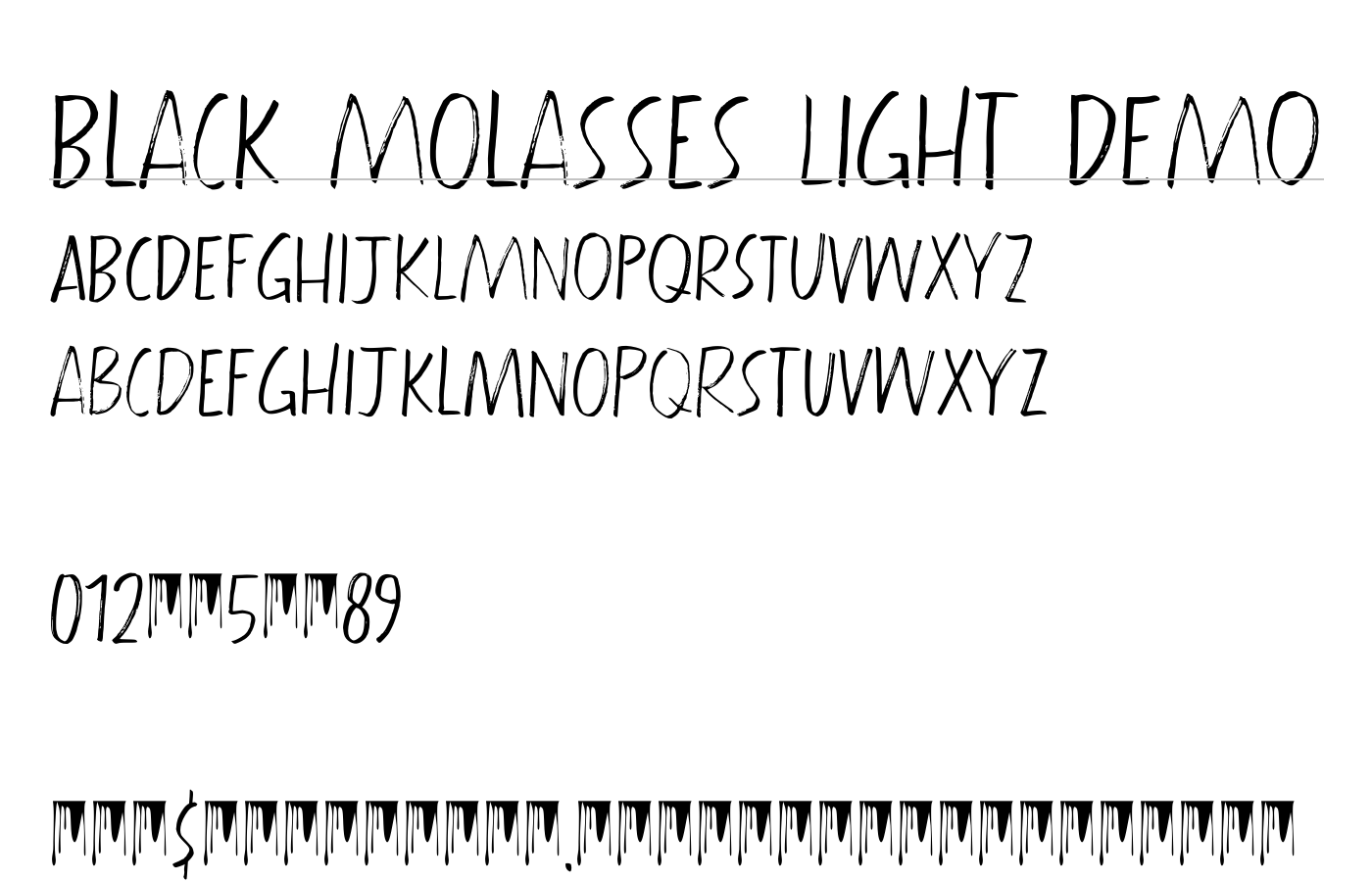
Black Molasses Light is a narrow, hand-drawn sans serif font that offers a playful yet slightly eerie vibe with its uneven strokes and dripping details on certain characters. Its thin, tall letterforms give it an expressive, casual style, perfect for creative projects needing a quirky or spooky atmosphere. This font works well in headlines, posters, or branding that seeks a unique, handcrafted charm with a touch of whimsy.
Black Molasses Light DEMO Font
About Black Molasses Light DEMO Font